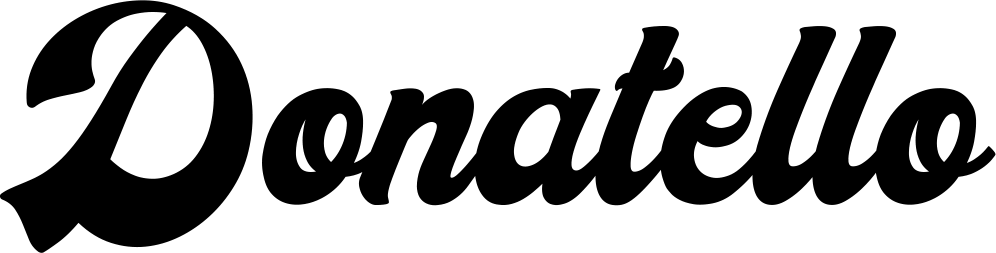
Donatello Font
Donatello is a script font that is very similar to old handwriting and classic letters. This font conveys a combination of nostalgia, credibility, and trust and strongly impresses the audience. You can use Donatello to design logos for famous and prestigious brands and movie posters. Graphic artists can increase the quality of their works by using a font like Donatello.